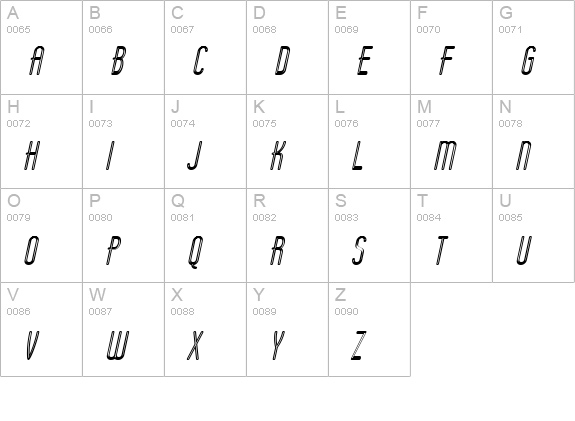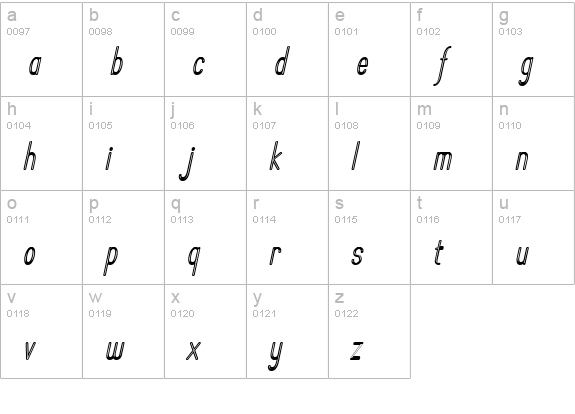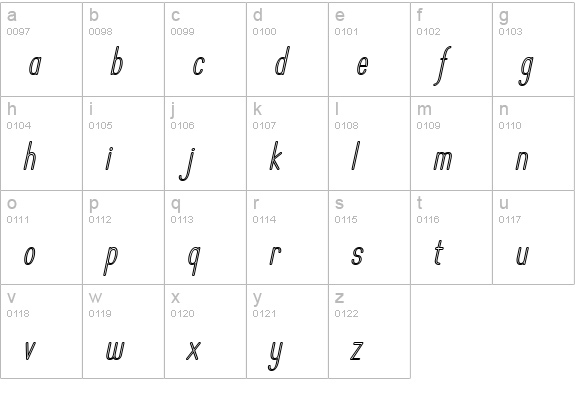
Operator Nine BTN Inline Oblique Font Details
Operator Nine BTN Inline Oblique is a distinctive, italic variant in the Operator typeface family \xE2\x80\x94 well suited to design and typography projects.